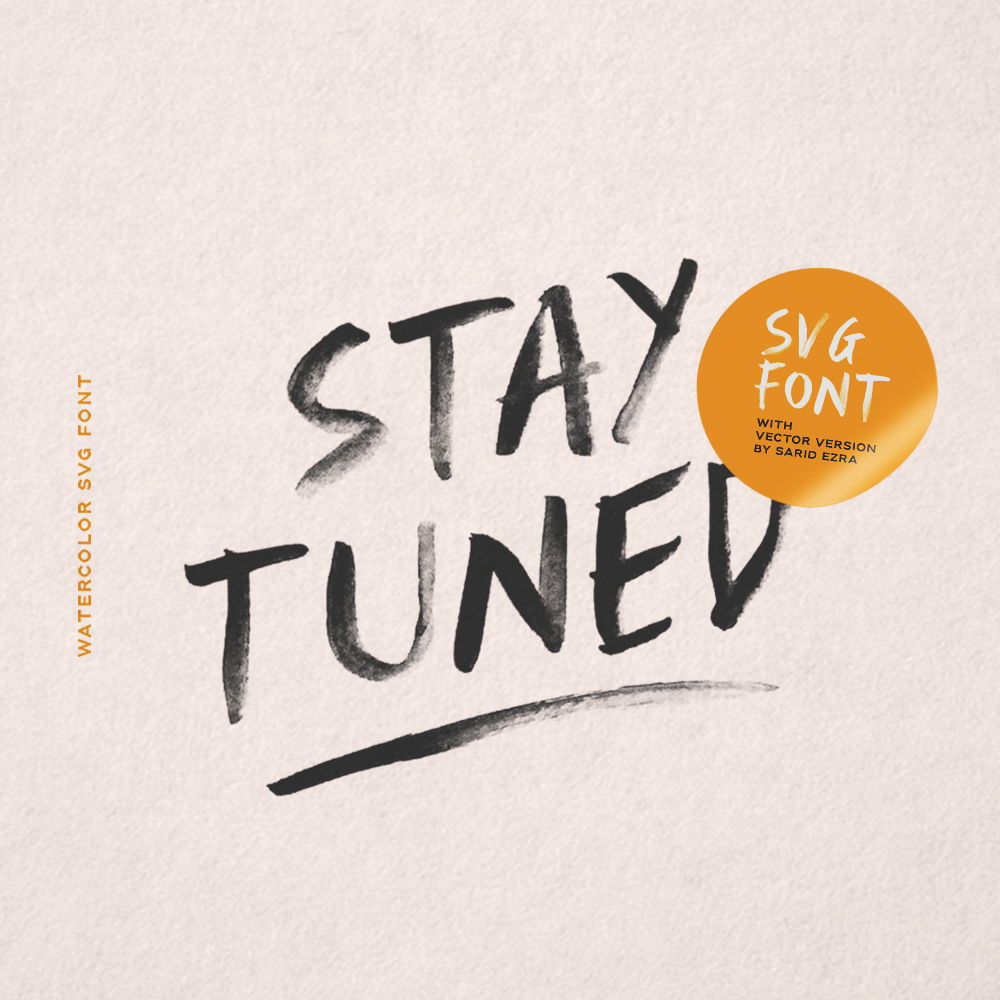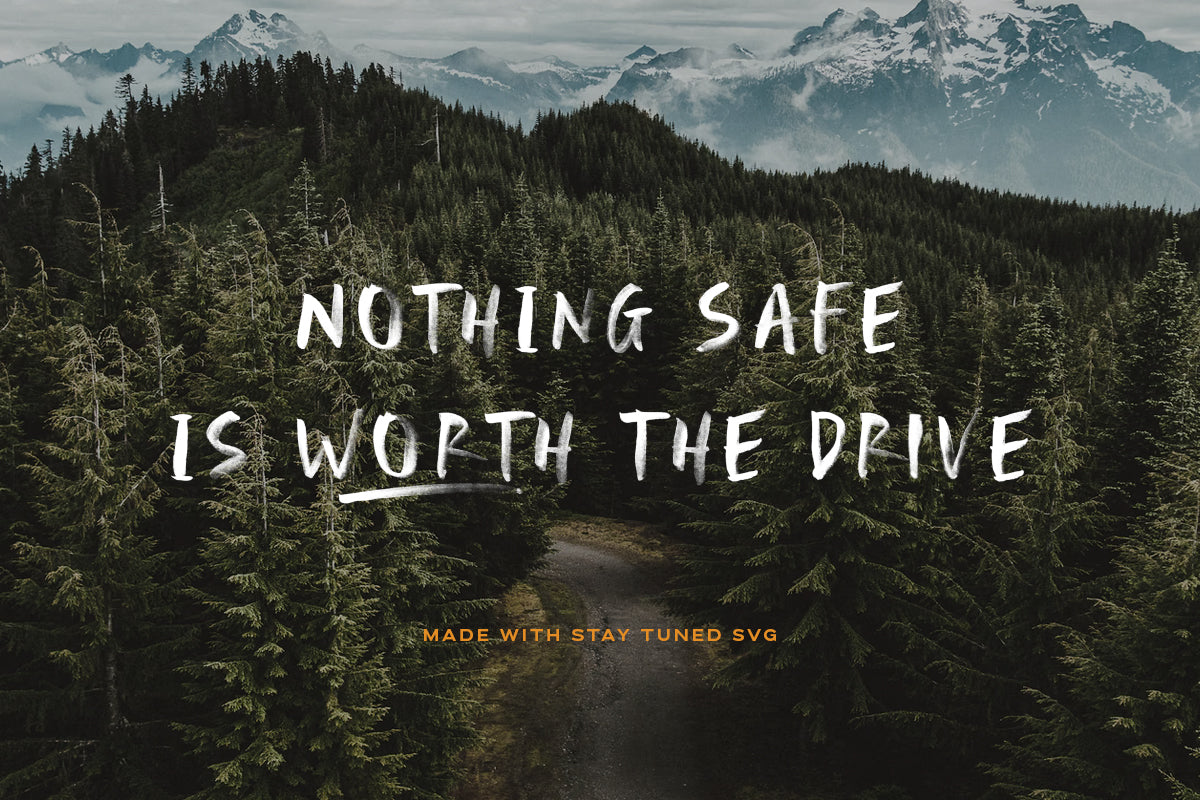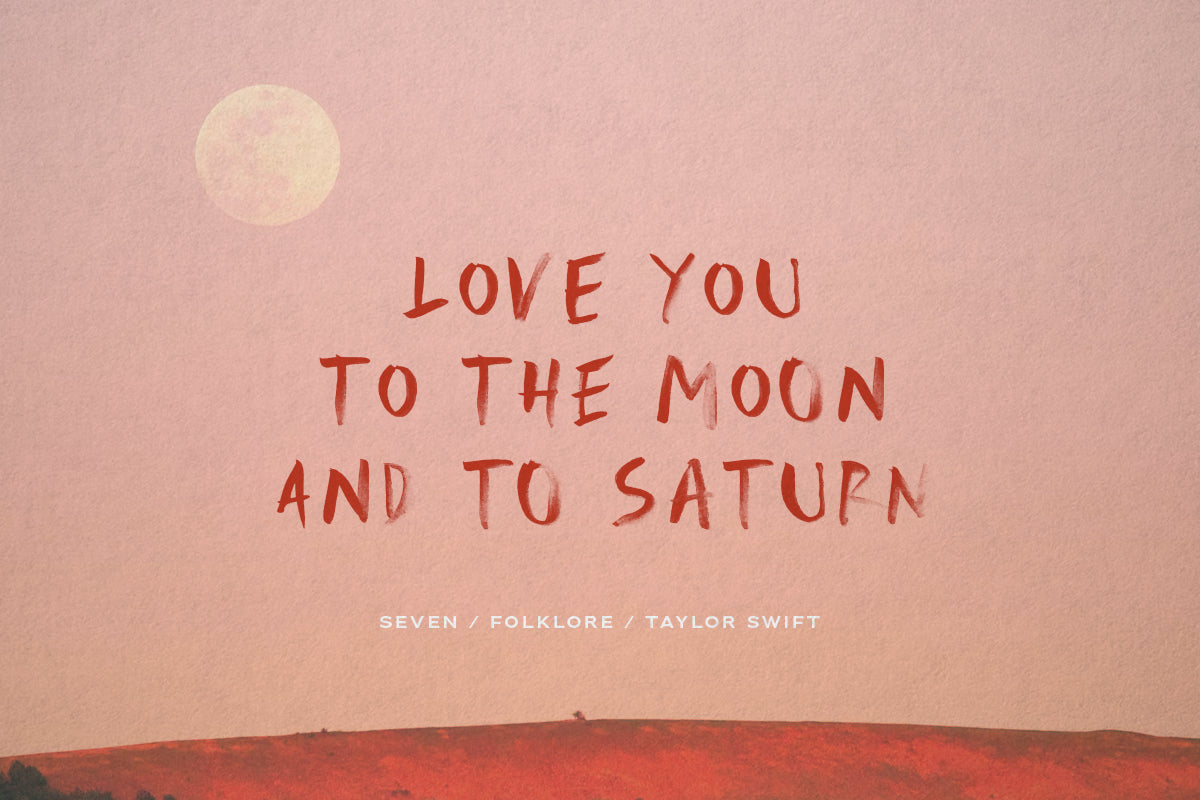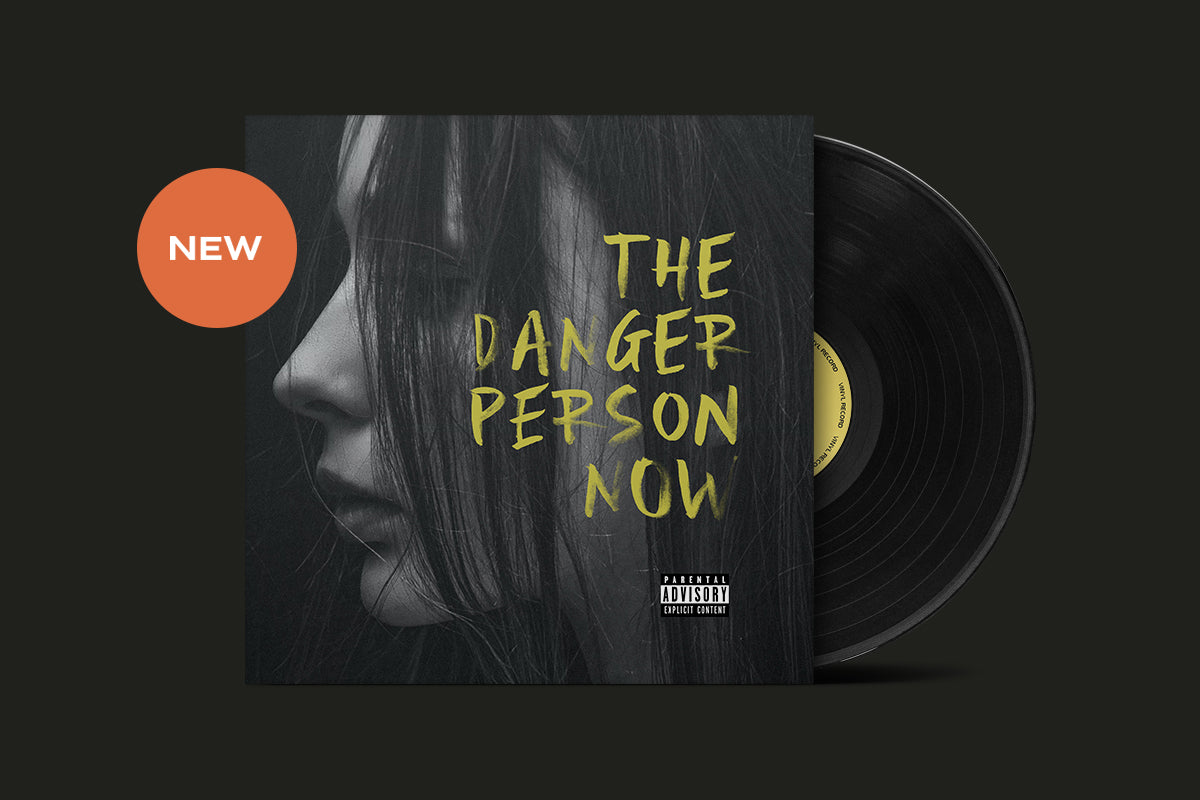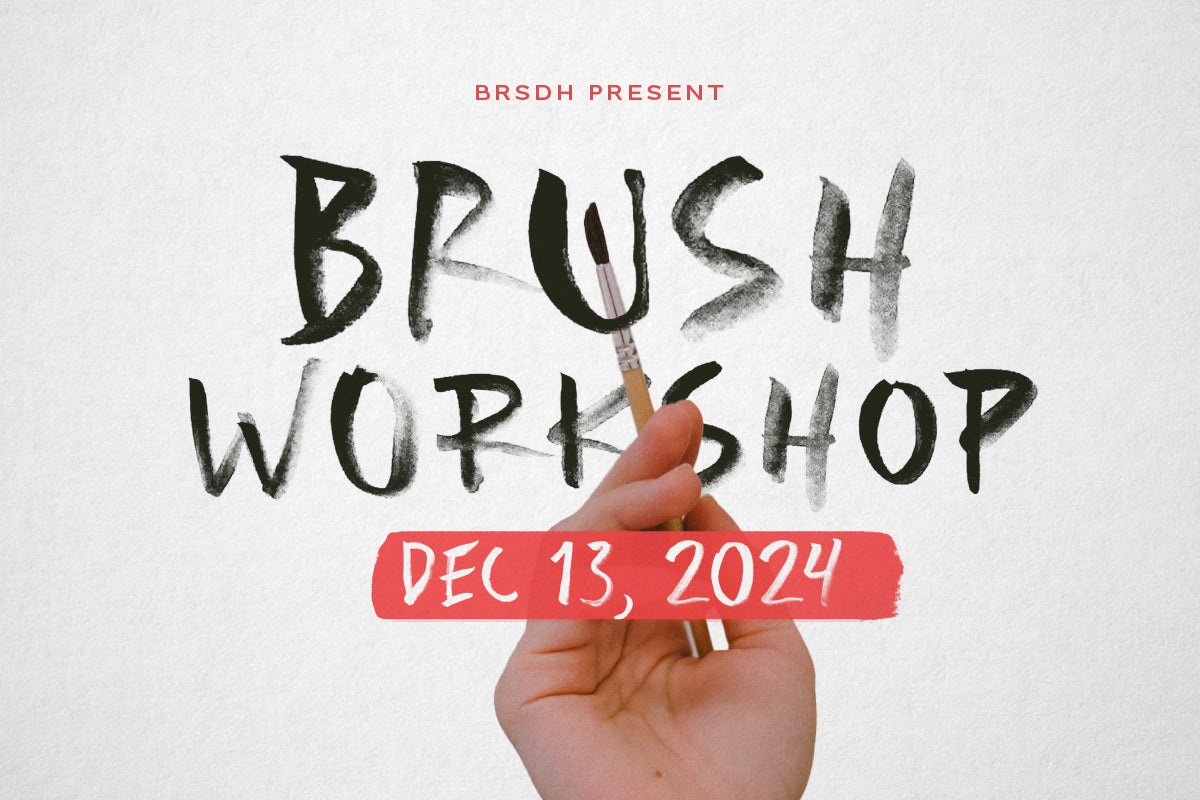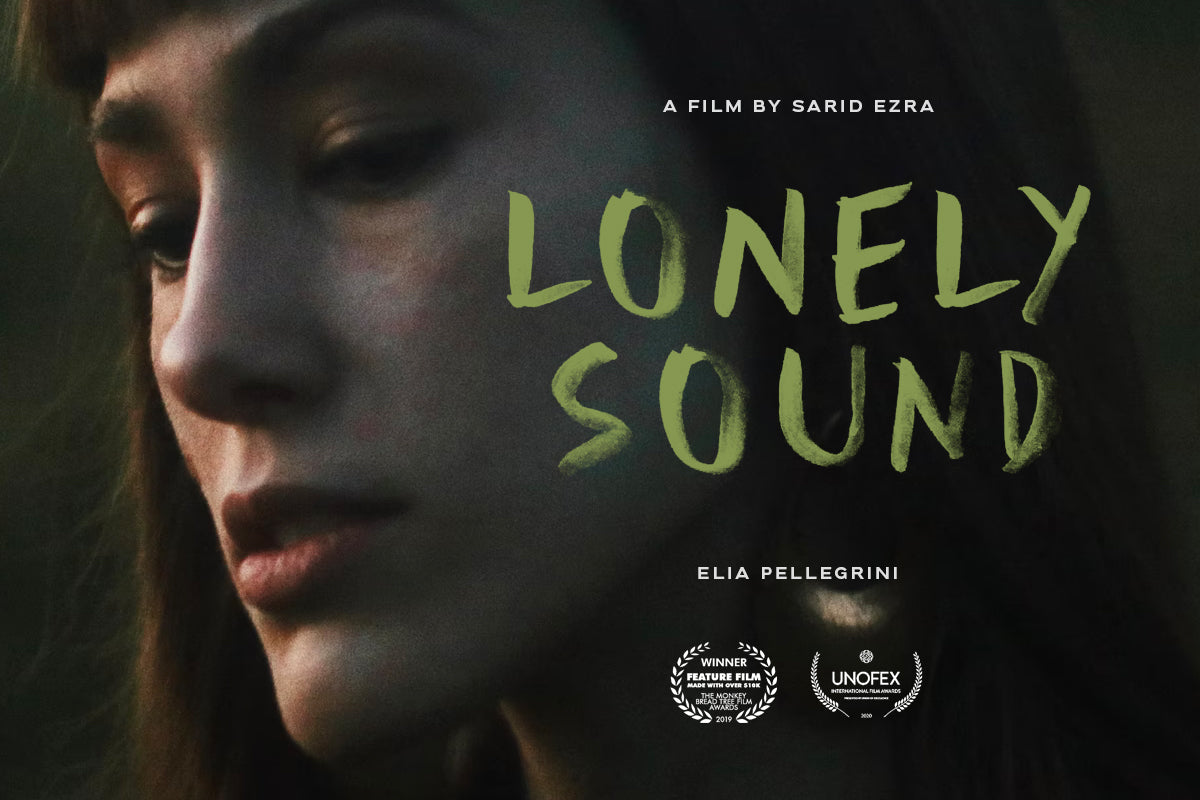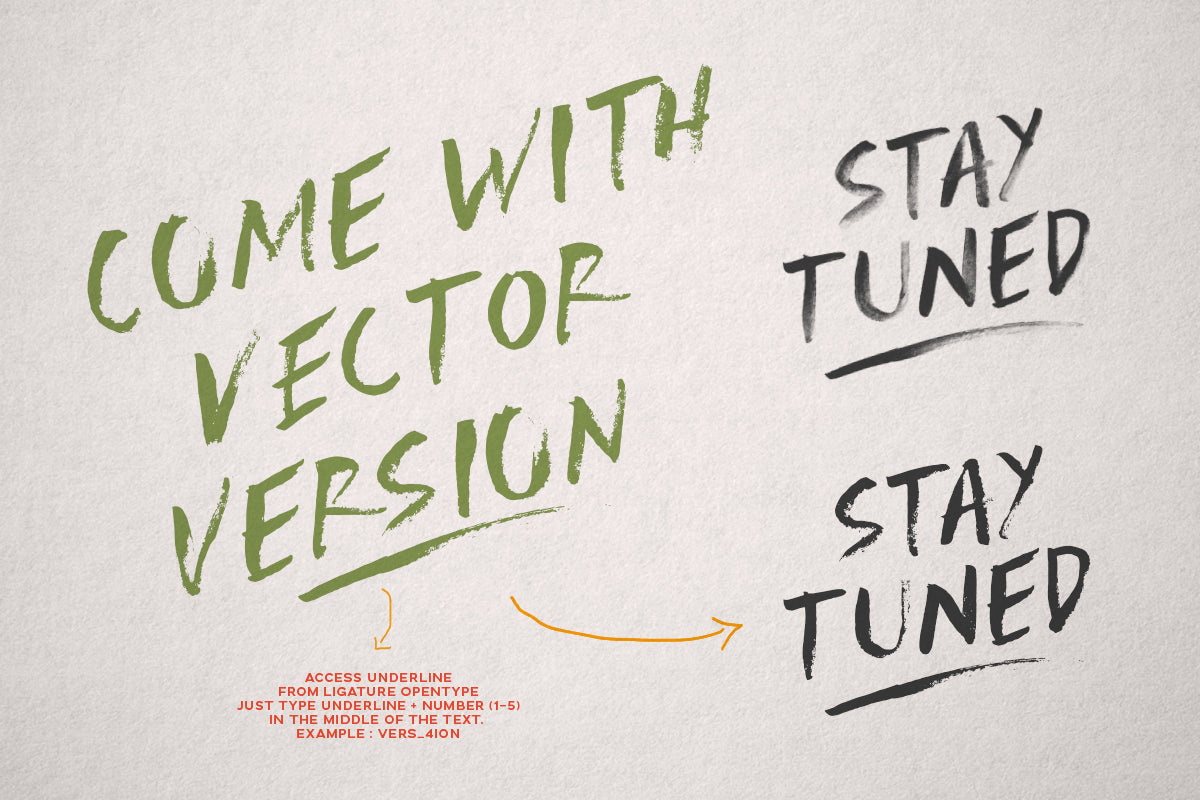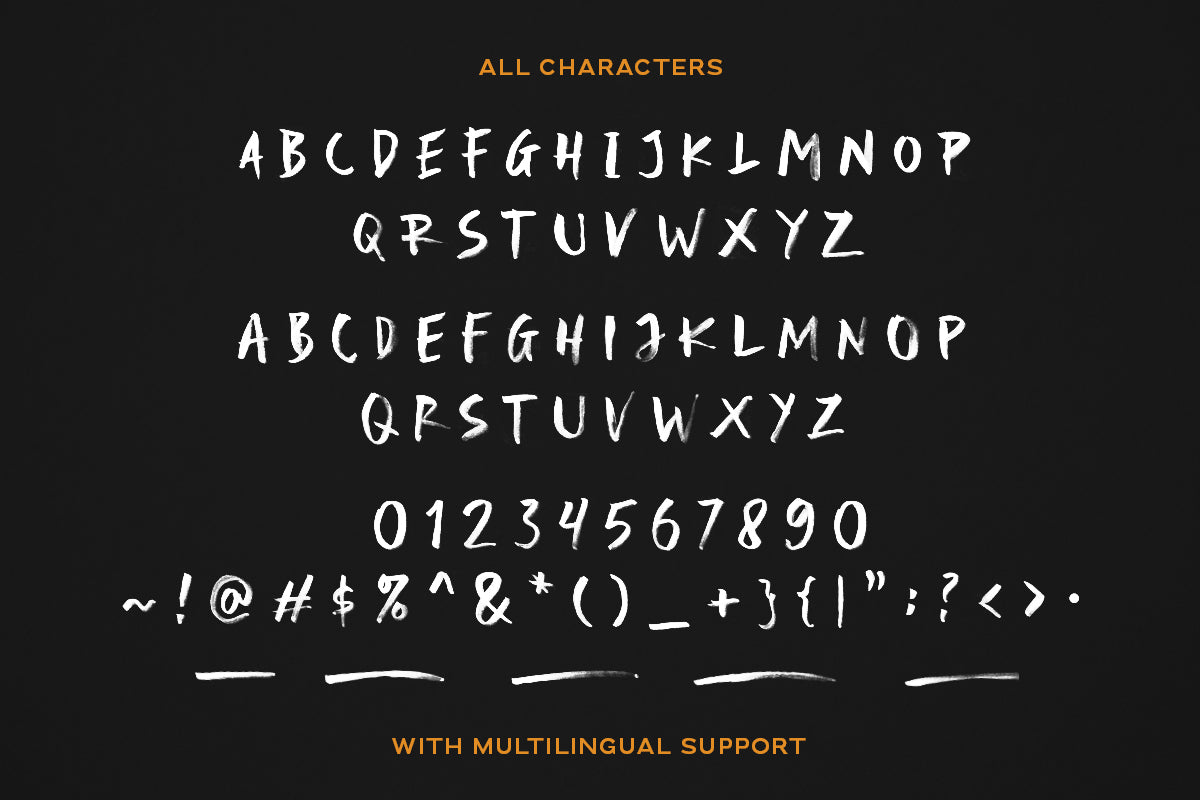
Stay Tuned - Watercolor SVG Font
Stay Tuned is SVG Font made with traditional watercolor. Comes with SVG format (SVG OTF) and also with a vector (OTF). Including different lowercase and uppercase that you can use randomly. You can combine the uppercase and lowercase in a word that will make your design looks more natural and handmade. Use the underline for dramatic looks. Number, symbol, and another punctuation also included in this fonts. Support multilingual!
Stay Tuned - Watercolor SVG Font is an SVG font created with traditional watercolor techniques, available in both SVG OTF and vector (OTF) formats. It features a variety of uppercase and lowercase letters, numbers, symbols, and punctuation, allowing for versatile design combinations and multilingual support.